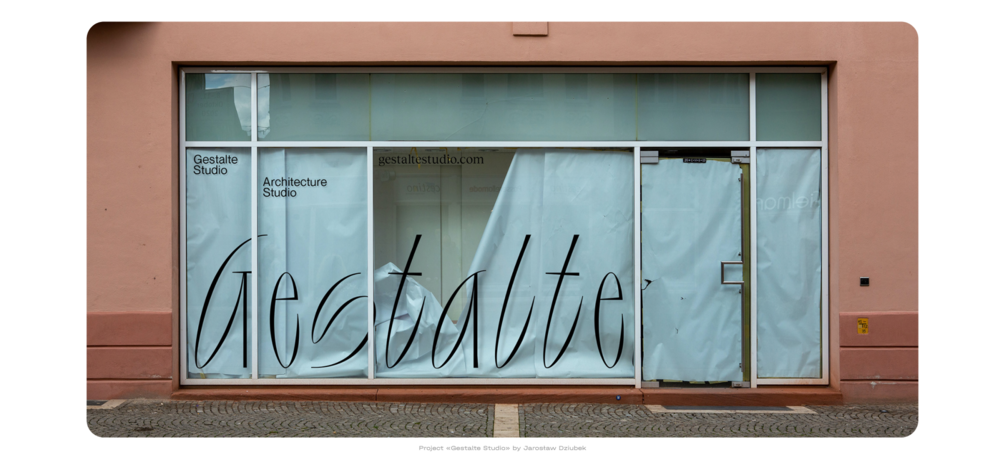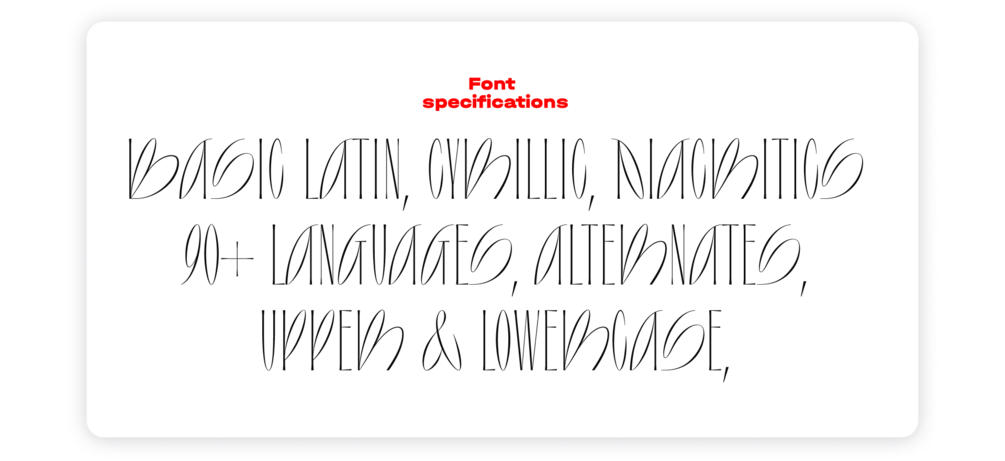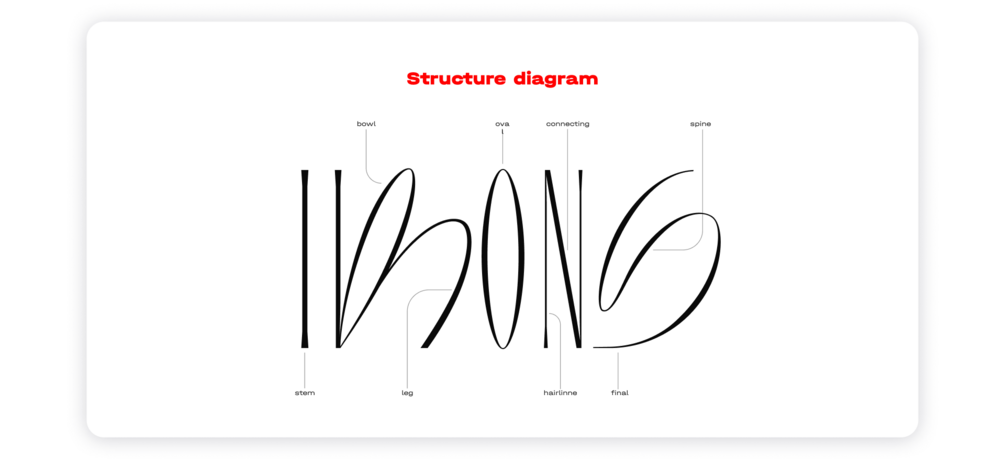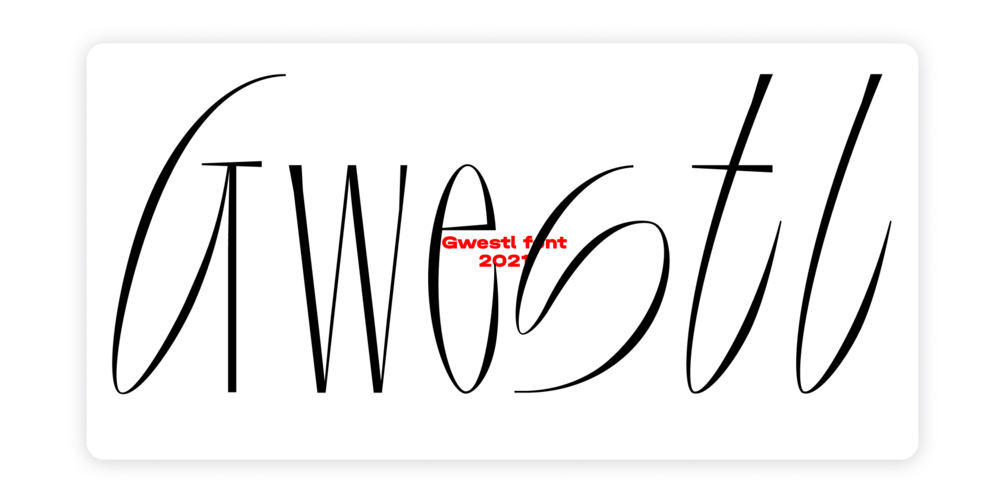
"Gwestl" font
Gwestl — it can be attributed to the type of antique, only the serifs are not so pronounced. It is very narrow in proportions and light in weight. In the font, I wanted to combine ordinary straight letters with very bright hand-drawn signs. Most of the letters are tilted from the lower left to the upper right, but some are tilted in the opposite direction to balance the typing. In the font, I see something similar to plants, stems, leaves, they are the same elastic and smooth.
Basic and Extended Latin, Cyrillic, Diacritics, Numbers, Punctuation, Currencies, Uppercase & lowercase.